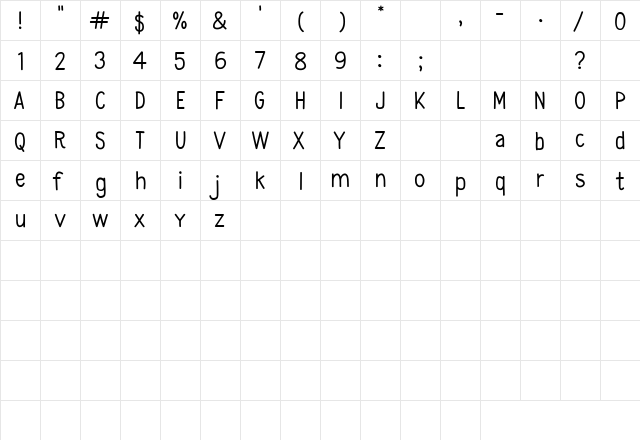
CF Second Son PERSONAL Regular
| Foundry | Cloutierfontes |
| Designer | Steve Cloutier |
Design Context for CF Second Son PERSONAL Typeface
CF Second Son PERSONAL is a composed and adaptable typeface that performs quietly and consistently across a wide range of design contexts. Its narrow stance lets it pack a punch even in space-constrained designs.